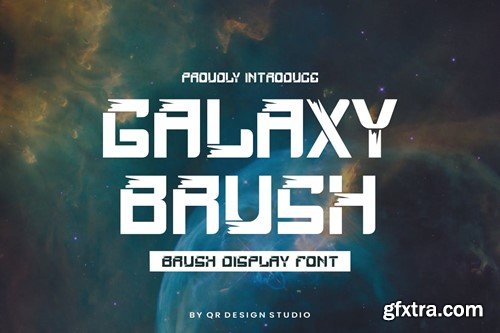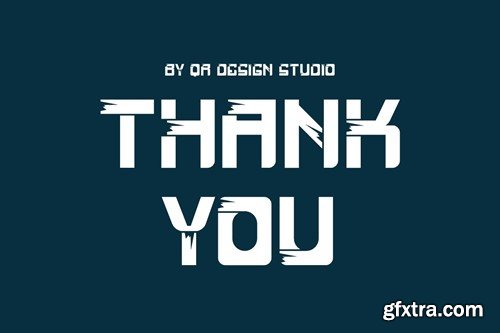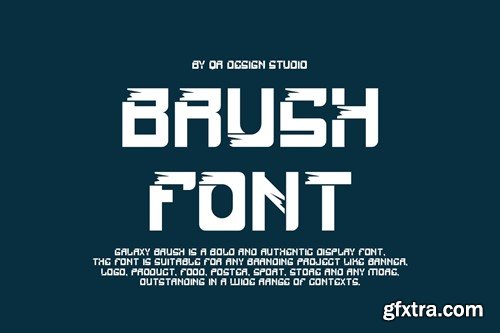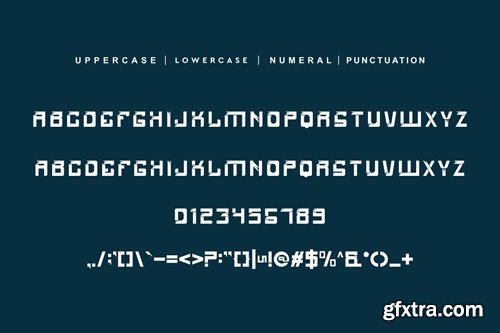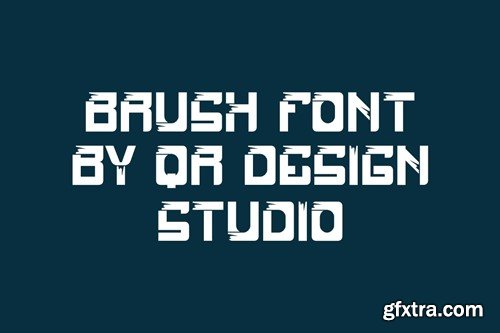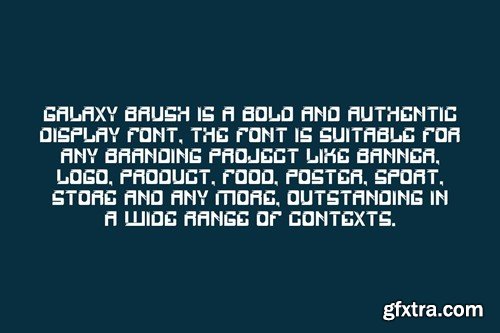
Galaxy Brush Font
Galaxy Brush Font is a bold and authentic display font. The font is suitable for any branding project like food, kids, poster, logo, sport, and many more. Outstanding in a wide range of contexts. Included